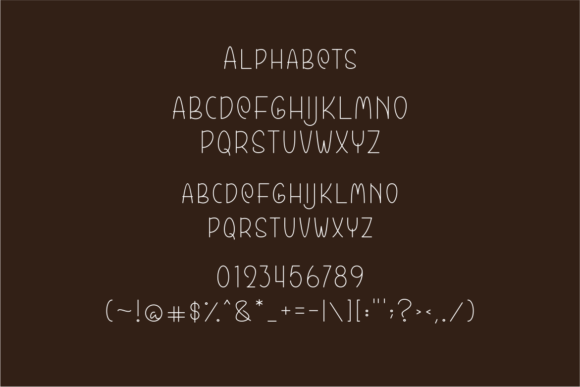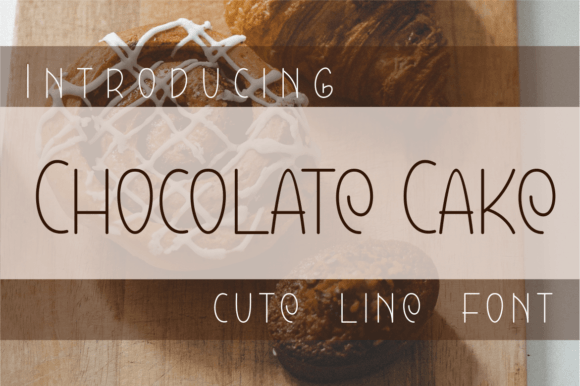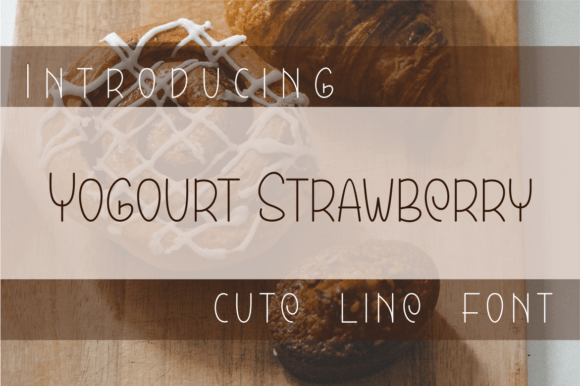
Bring Your Food Brand to Life with Begoodys Font
As a designer, there’s nothing quite like the thrill of finding the perfect font to elevate a brand’s message. It’s that moment when a concept clicks, and the design comes together in a way that’s both visually stunning and emotionally resonant. For me, it was when I stumbled upon Begoodys Font – a cute, thin-line display font that’s tailor-made for showcasing the yummiest of food and beverage products.
Begoodys Font is more than just a pretty face; it’s a valuable tool in a designer’s arsenal. Its playful, whimsical style makes it the perfect fit for brands that want to convey a sense of fun and approachability. Whether you’re promoting a new line of artisanal yogurts or a rich, velvety chocolate sauce, Begoodys Font is sure to bring a touch of magic to your product.
Begoodys Font Key Features
- Unique Characteristics: This font features a unique blend of modern and vintage elements, with a distinctive rounded shape and subtle flair at the ends of the letters.
Begoodys Font Review
I recently had the chance to work with Begoodys Font, and I must say it was a mixed bag. Here’s my honest review.
- Unique character set: Begoodys Font has a distinctive look that sets it apart from more common fonts. It’s perfect for designers looking to add some personality to their projects.
- High-quality rendering: The font renders well on a variety of devices and screen sizes, making it suitable for digital use.
- Supports multiple languages: Begoodys Font includes a wide range of languages, making it a great choice for global projects.
- Limited font sizes: The font’s design doesn’t lend itself well to very large or very small font sizes. It’s best used between 14-24 points.
- Not ideal for body text: While Begoodys Font is great for headlines and titles, it’s not the best choice for body text due to its unique style and limited legibility at smaller sizes.
Begoodys Font is a great choice for designers who want to add some visual interest to their projects. While it has some limitations, its unique character set and high-quality rendering make it a solid addition to any font library. Just be mindful of its limitations when choosing font sizes and using it for body text.
Common Use Cases for Begoodys Font
Begoodys Font is suitable for various design projects, including business cards, brochures, posters, and website headers. It’s also a great choice for creating elegant and sophisticated invitations, menus, and other print materials.